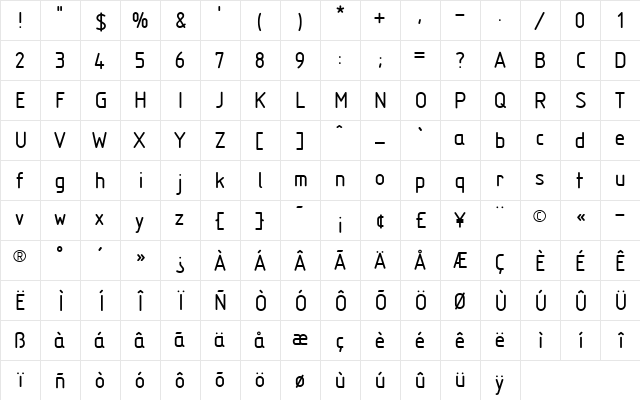
Isonorm MN Regular
| Foundry | Mecanorma International . \ |
Design Context for Isonorm MN Typeface
Isonorm MN takes a measured approach to typography — its balanced proportions and neutral character make it a reliable workhorse for both digital and print work.